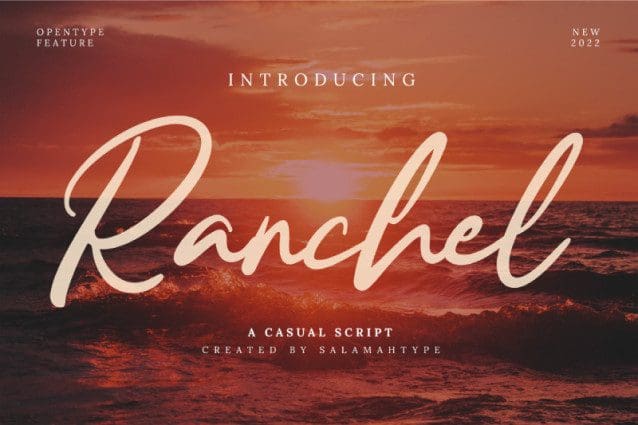
Ranchel Script Font
Ranchel Script Font is perfect for websites, branding projects, logo, wedding designs, social media posts, advertisements, product packaging, product designs, label, photography, watermark and anything you want!